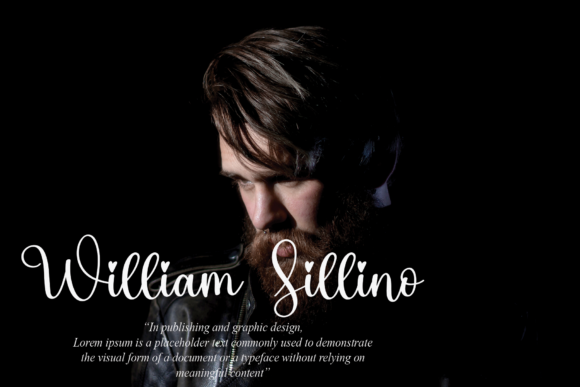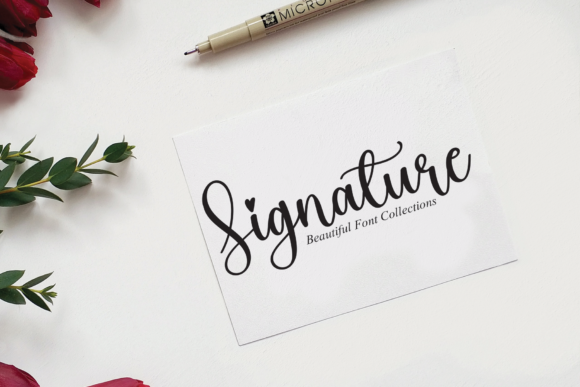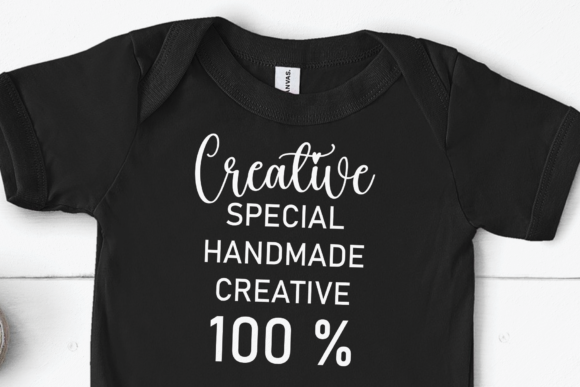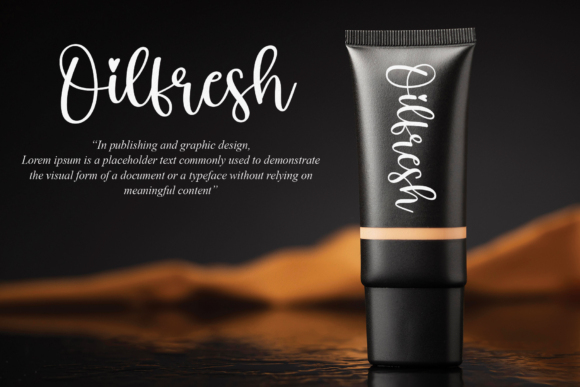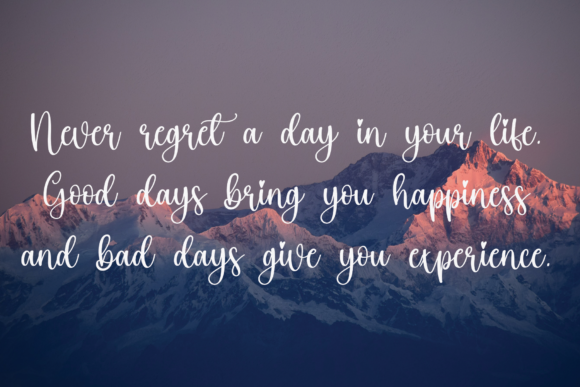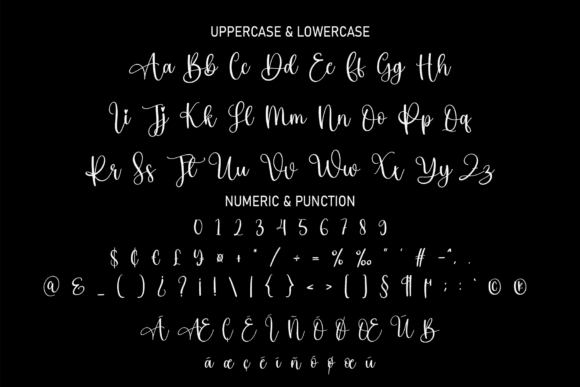
Introducing Blackink Font: Elevate Your Designs with Elegance and Flair
In the world of typography, a font can make or break a design. It’s the perfect blend of style, personality, and functionality that transforms a simple visual into a stunning masterpiece. For designers and crafters seeking a touch of elegance and sophistication, Blackink Font is an exquisite choice. This delicate, elegant, and flowing handwritten font is poised to breathe life into your most creative ideas.
The Essence of Blackink Font
Blackink Font stands out with its beautifully crafted, well-balanced characters. Each letter is designed with meticulous attention to detail, ensuring a harmonious flow that is both visually appealing and highly readable. This makes Blackink an incredibly versatile font, capable of complementing a wide range of design projects. Whether you’re working on a sophisticated branding campaign, a charming wedding invitation, or an engaging blog post, Blackink Font is sure to enhance your work with its refined charm.
One of the key advantages of Blackink Font is its versatility. Its elegant and flowing script can seamlessly integrate into various design contexts, from digital media to print materials. This adaptability makes it an invaluable asset for designers who work across different platforms and mediums. Whether you’re creating:
- Branding and Logos: Use Blackink Font to add a touch of sophistication and personality to your brand’s identity.
- Stationery and Invitations: Elevate your paper goods with elegant and eye-catching typography.
- Web and Digital Content: Enhance your website, blog, or social media graphics with a font that exudes elegance and professionalism.
- Packaging and Product Design: Stand out on store shelves with beautifully designed packaging that incorporates Blackink Font.
Bringing Your Ideas to Life
The true beauty of Blackink Font lies in its ability to transform your ideas into visually stunning realities. Its delicate and flowing lines add a touch of whimsy and charm, making even the most straightforward designs appear more engaging and sophisticated. When you integrate Blackink Font into your projects, you’re not just adding a font—you’re elevating the entire aesthetic and emotional appeal of your work.
Tips for Using Blackink Font Effectively
To make the most of Blackink Font, consider the following tips:
- Combine with Contrasting Fonts: Pair Blackink Font with a more straightforward, sans-serif font for headings and body text to create visual interest and hierarchy.
- Play with Colors: While Blackink Font shines in its native color, experimenting with subtle color variations can add depth and personality to your designs.
- Emphasize Key Elements: Use size, boldness, or color to highlight specific parts of your text, drawing attention where it’s most needed.
Blackink Font is more than just a typeface; it’s a design element that brings a unique blend of elegance, charm, and versatility to your projects. Whether you’re a professional designer or a crafting enthusiast, Blackink Font offers the perfect combination of beauty and functionality to elevate your work. By incorporating this exquisite handwritten font into your designs, you’ll not only enhance their aesthetic appeal but also give them a distinctive character that stands out in a crowded creative landscape. So, add Blackink Font to your creative arsenal and watch your ideas come alive with elegance and flair.